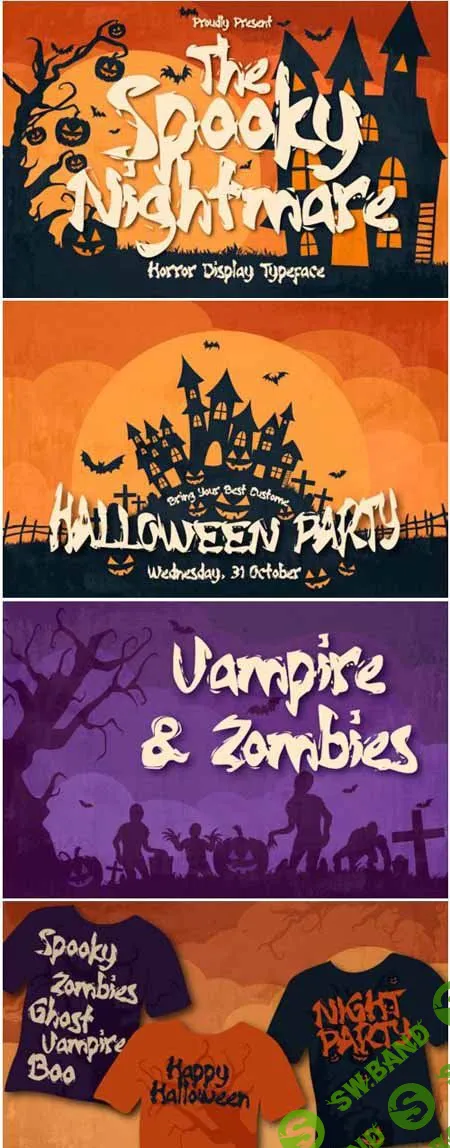
Название: Spooky Nightmare Font
Spooky Nightmare Font
Описание:
Spooky Nightmare celebrates all things horror. This raw and splattered typeface will elevate any Halloween crafting idea!